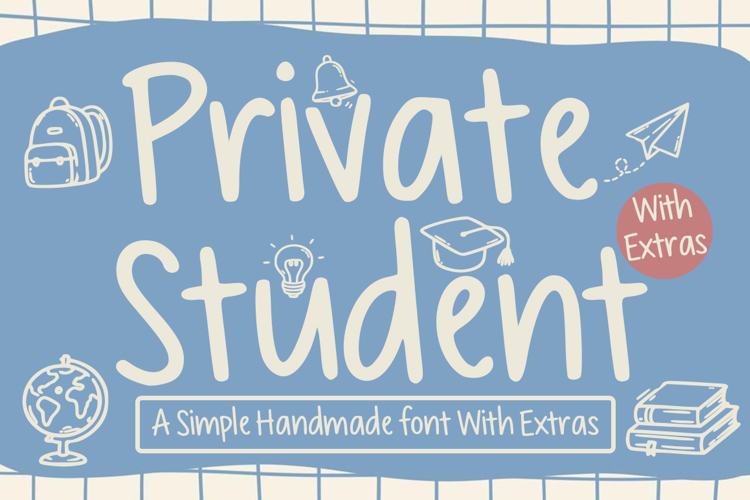
Private Student with Extras
Private Student with Extras is a playful handwritten font inspired by the natural writing style of school students. Designed with authentic hand-drawn strokes, this font captures the cheerful, creative, and expressive feeling of classroom notes, doodles, and study journals. Its casual yet readable character makes it perfect for school-themed projects, educational branding, worksheets, posters, stationery, children’s products, social media designs, and creative crafts.
To make your designs even more complete, Private Student with Extras also includes a collection of bonus vector extras featuring various school-themed illustrations such as pencils, books, rulers, backpacks, paper clips, notebooks, scissors, and other classroom essentials. These decorative elements are carefully crafted to perfectly match the font’s handwritten style, allowing you to create fun and cohesive designs with ease.
Whether you are creating educational materials or playful creative projects, Private Student with Extras delivers a warm, friendly, and youthful handwritten aesthetic that brings the spirit of school life into every design.